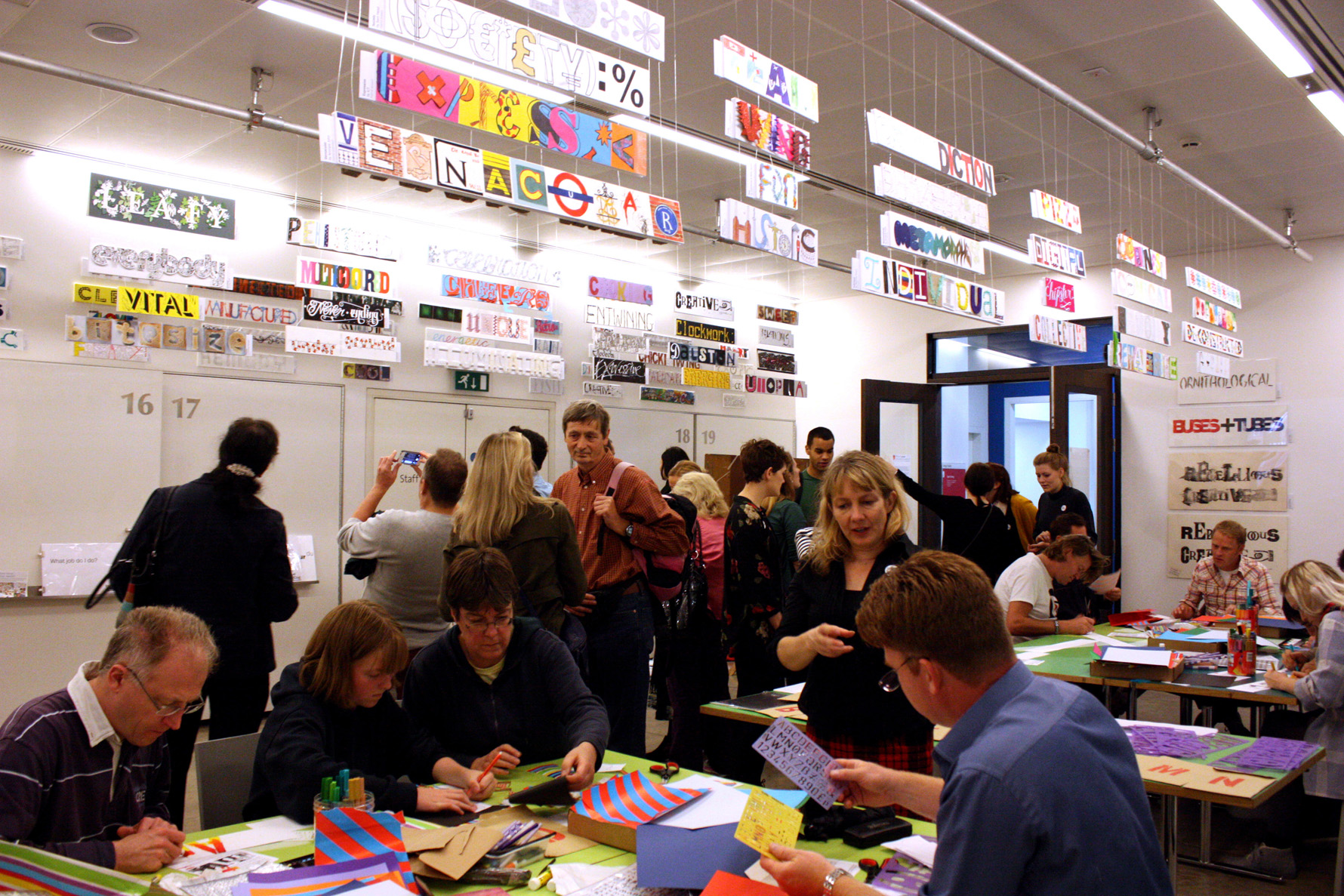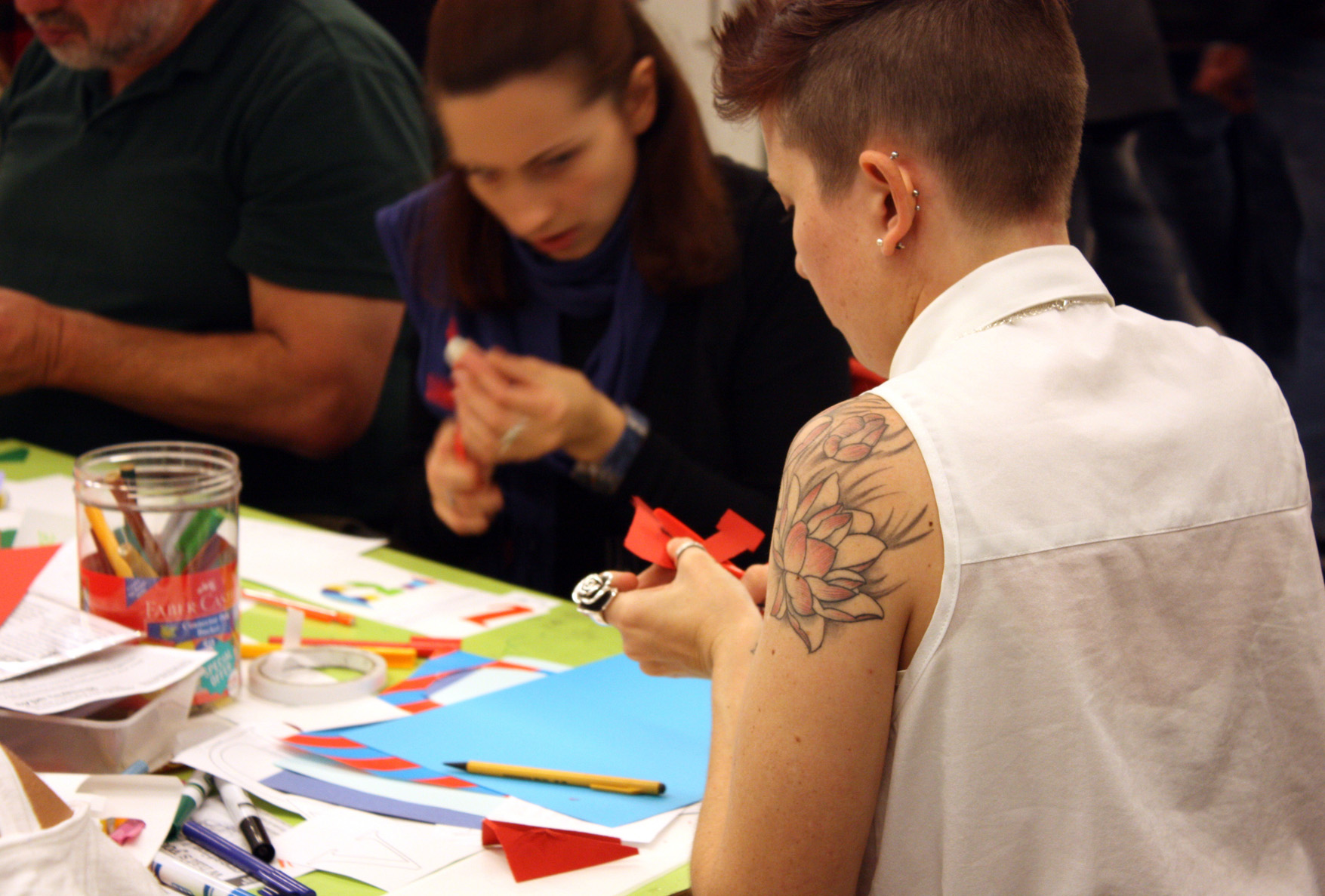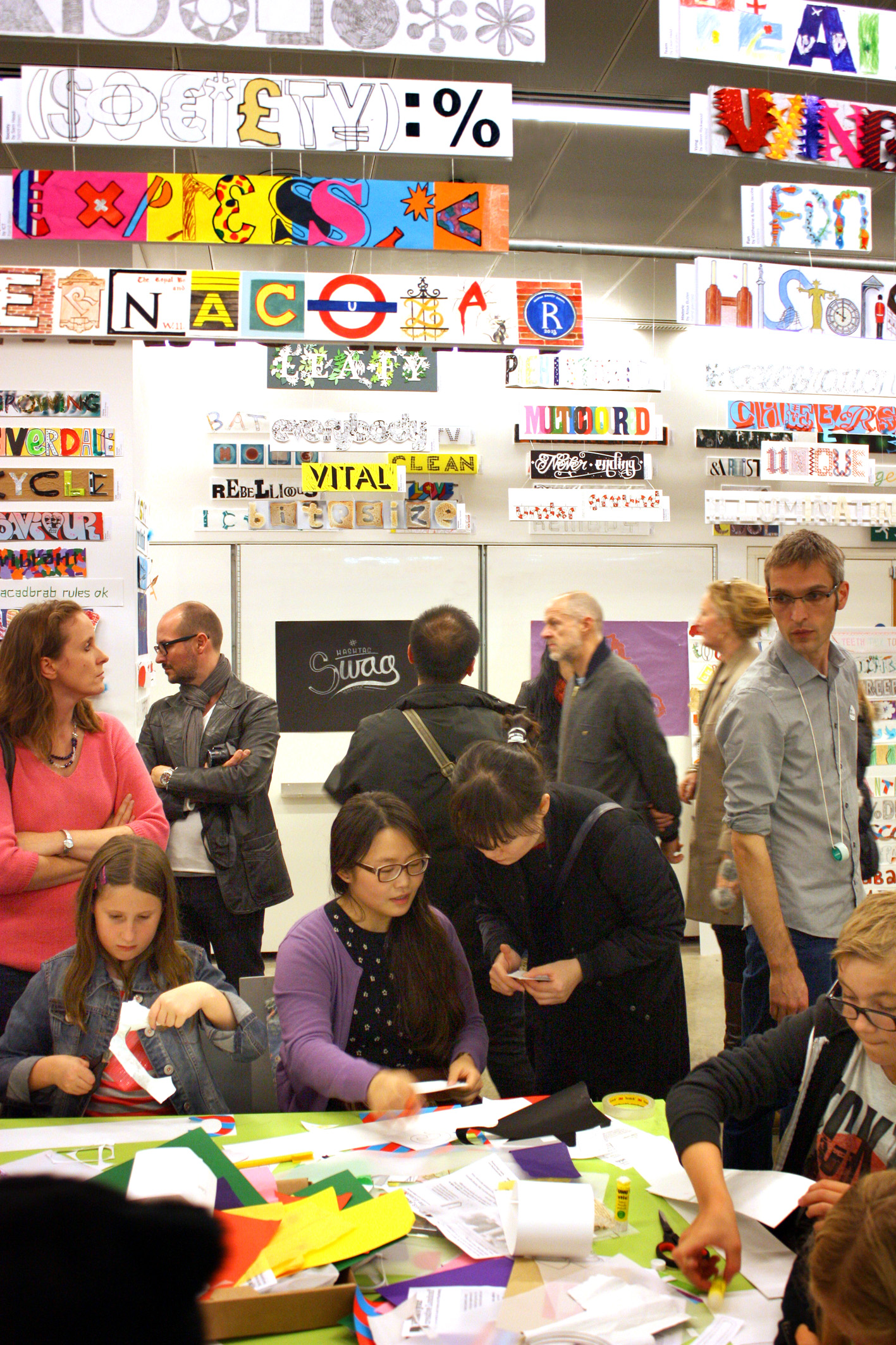
Students do you wish you could study abroad this summer?
Join talented international students from USA, Canada, India and Australia who’ve had the unique experience of a virtual tour with Sarah Hyndman discovering the secrets hidden in London’s typography
Just because you can’t travel in person this year doesn’t mean that you can’t experience the culture, history and design inspiration that London has to offer. On a virtual Type Safari you’ll hear the stories behind the signs, discover the secrets hidden in the letters and you’ll find out what they reveal about centuries of London’s history.
Join Sarah Hyndman, author of the bestselling Why Fonts Matter for an immersive and creative tour of Dalston, a vibrant area in East London steeped in history.
•    You’ll learn about design history in the real world.
•    You’ll discover that typography is vibrant, exciting and it’s all around you (not just in academic books).
•    You’ll see how signage reflects changing cultural attitudes and what trends are popular today.
These are highly interactive sessions that take place live on Zoom. Participants are encouraged to engage with the virtual tour as they explore letterforms and the associations that have been baked into them. Type Safaris are suitable for all, no prior knowledge (or interest in) fonts is needed.
•    Compare East London with your local neighbourhood.
•    Spot the clues that tell you the history of the area.
•    Discover ornate signs previously hidden from view.
•    Find out whether you judge a shop by its sign.
Adobe MAX
Sarah took Adobe MAX delegates on a 20-minute virtual Type Safari through East London. 5,321 people watched the talk and gave Sarah a speaker score of 4.9/5).
Sketchbook Type Safari
A Type Safari with a sketchbook challenge is available for colleges and universities, book a call to discuss your session.
Workshop clients
Sarah has created online workshops for students at Birmingham City University, Design Ventura, Design Museum London, Ecole Intuit Lab Mumbai & Kolkata, Elon University, North Carolina, Merrimack College, Massachusetts, Ravensbourne University London, Shillington UK & Australia.
She has created in person workshops for students at Arts University Bournemouth, Birmingham City University, California Polytechnic, CIS Abroad, Design Ventura, Design Museum London, EASD València, Ecole Intuit Lab Mumbai & Kolkata, Portland State University, RMIT Melbourne, Shillington UK, University of Bedfordshire, VIA University College Denmark, Wolverhampton University.
Sarah also taught Experimental Typography at the University of the Arts London for six years and has been a judge and jury president for the D&AD New Blood Awards.
Master Talk in Mumbai, 3 minute edit.
I recently created a week-long course for the wonderful 2nd & 3rd year students at the École Intuit Lab in Mumbai, India. Here’s a 3 minute edit of the Master Talk I gave at the end of the week to industry leaders and students. Full report on the course coming soon, to be written by the students.
Type Tasting with the London Design Festival at the V&A
Type Tasting with the London Design Festival at the V&A
It was a weekend of Type Tasting drop in workshops at the V&A beneath our impressive collection of creative London words. The room was buzzing with chatter as people came in and looked at the collection, especially as the new words were added throughout the weekend and covered the walls by the end.
We’ve been posing the question “what’s your creative London?” and the collection overhead inspired participants to sit down and create their own responses. Many arrived looking determined and announcing “I’m here to make my word”. Our corner of the V&A became the hive of creativity and messy activity. The tables were filled with faces of concentration and the sounds of cutting and scribbling with the occasional “pass the glue?”. See portraits of the participants with their completed words.
We’re also delighted to have welcomed those who traveled from far afield to join us having listened to me being interviewed by John Humphrys and Justin Webb on BBC Radio 4 on Saturday morning.
The day was documented by Oli Frape who set up his easel for Live Lettering throughout Saturday, we played lively rounds of Typography Karaoke and covered much of the remaining wall space with the newly created words.
Blog: The Londonist
‘Typography Walks And Workshops For Font Fanciers’
If you’re one of the large number of people who gets excited over fonts, letters and typography, take a look at this upcoming series of Type Tasting events. These workshops and events are run by Sarah Hyndman, and get participants experimenting with type.